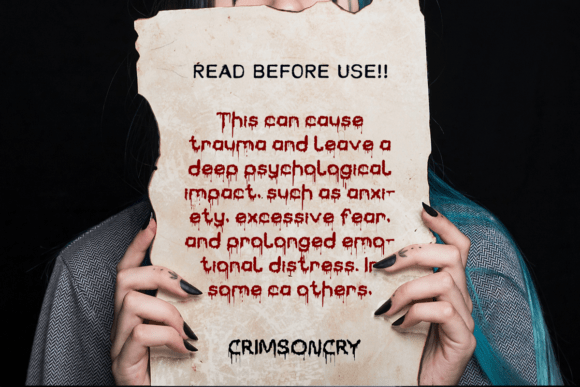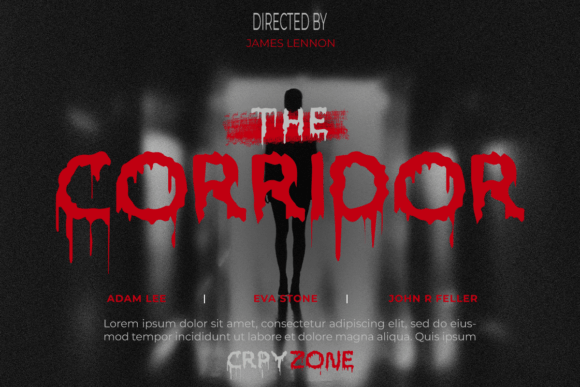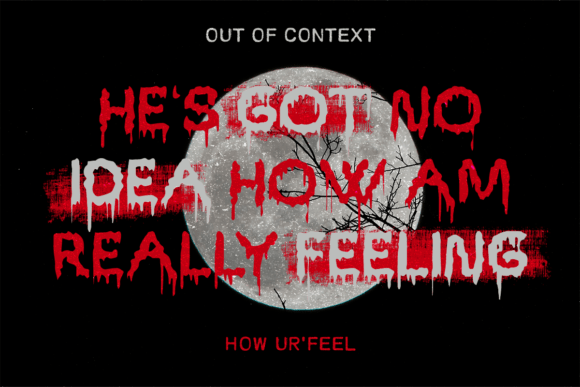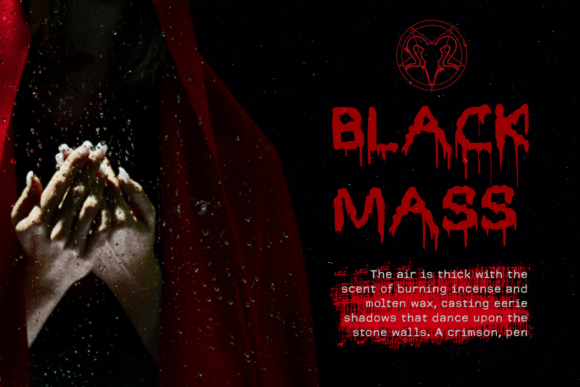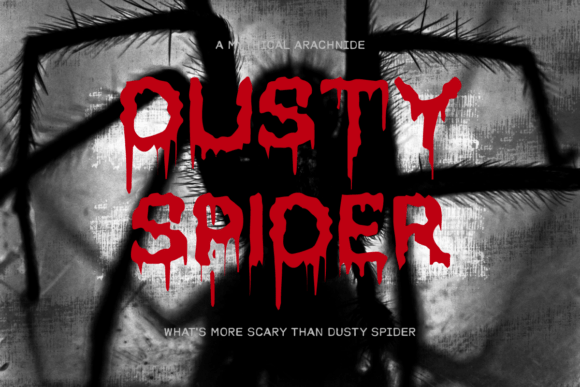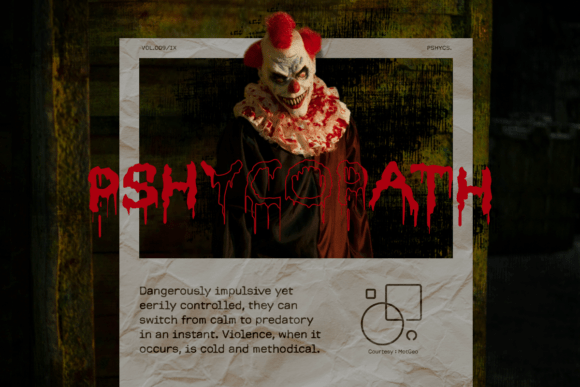
Introduction to Crimsoncry Font
Crimsonery is a bold horror typeface featuring dripping blood elements and jagged edges, perfect for creating chilling visuals.
This display font evokes fear and tension, making it an ideal choice for Halloween designs, horror movie titles, haunted house promotions, and thriller-themed branding Add Crimsonery to your toolkit for that extra jolt of fear and fright.
Key Features of Crimsoncry Font
Why Choose Crimsoncry Font?
Crimsoncry Font offers exceptional quality and versatility, making it a valuable addition to your design toolkit. Whether you’re creating for personal projects or commercial use, Crimsoncry Font delivers professional results.